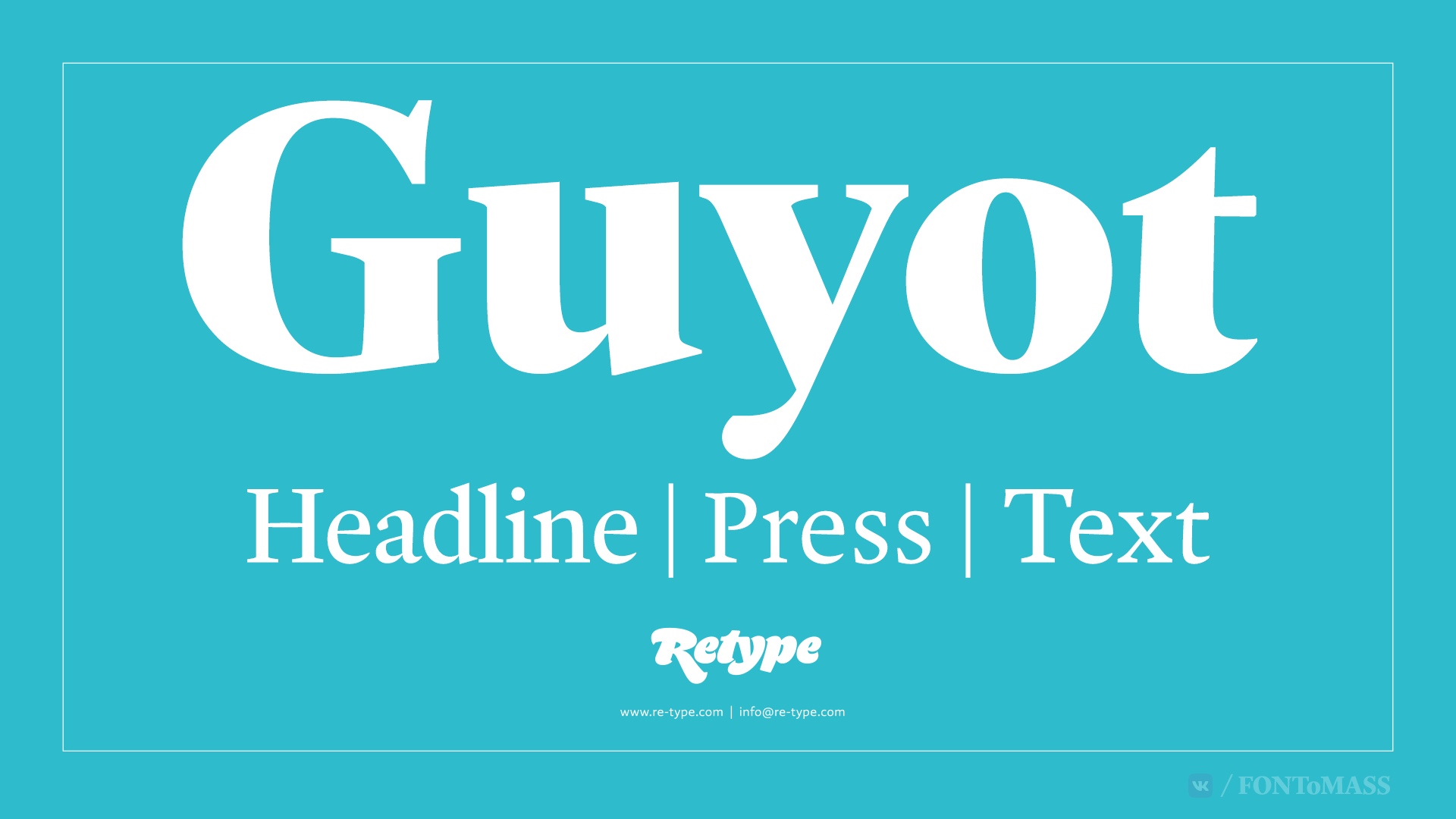
Guyot Font
This Guyot Font is perfect for geographic branding, exploration company logos, scientific research materials, cartographic design projects, geological survey communications, adventure travel promotions, educational geography content, mountaineering expedition graphics, oceanic research publications, and topographical mapping applications.
What makes this Guyot Font exciting is its geographic precision that captures the scientific accuracy and exploratory spirit of geographical discovery. The font features structured letterforms with cartographic clarity that convey expertise, scientific rigor, and geographic authority. Its exploratory character and scientific authenticity make it ideal for brands seeking to communicate geographical knowledge, research excellence, and topographical expertise in scientific and adventure markets.
The Guyot Font family includes light, regular, medium, and bold weights with geographic alternates and scientific variants. This comprehensive exploratory font family provides designers with precise typographic tools to create authoritative compositions while maintaining the geographic character essential for scientific research and adventure travel brand communications.
Research institutions and exploration companies consistently choose Guyot Font Free Download for projects requiring scientific authority and geographic credibility. This font's distinctive exploratory character perfectly captures the research excellence and geographical expertise that resonate with audiences who value scientific accuracy, exploration achievements, and professional geographic knowledge.
The scientific construction of Guyot Font showcases precisely engineered letterforms with cartographic proportions that ensure exceptional clarity across all research applications. Its authoritative appearance and geographic precision create credible impressions while maintaining the readability necessary for effective scientific communication and exploration materials.
Professional designers appreciate how Guyot Font brings immediate scientific authority and geographic credibility to brand communications. The font's exploratory nature allows organizations to communicate research expertise and geographical excellence while maintaining the professional quality necessary for effective positioning in scientific research and adventure exploration markets.
The exploratory appeal of Guyot Font makes it particularly effective for brands emphasizing scientific research, geographic exploration, and topographical expertise. Its precise character resonates strongly with audiences who appreciate scientific accuracy, exploration achievements, and organizations that represent authoritative geographic knowledge and research excellence.
Whether developing materials for geological research institutions or creating content for adventure expedition companies, Guyot Font Free Download provides the scientific typographic foundation that exploration brands need to communicate their geographic authority, research expertise, and the precise excellence that defines professional scientific exploration and geographical research achievement.